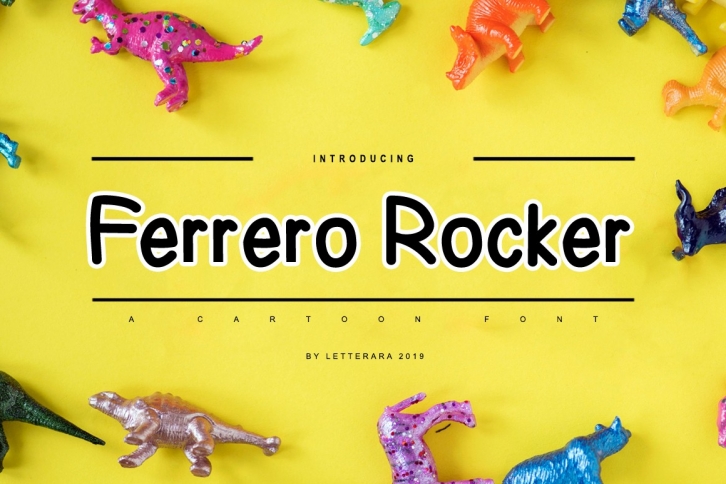
Ferrero Rocker is a trendy and unique font with an authentic style. It was designed by letterara and it's a great choice for creative people who need such a font. It was released on July 29, 2019 and the file size is 19.79 MB. Ferrero Rocker will add an organic vibe to any design idea!